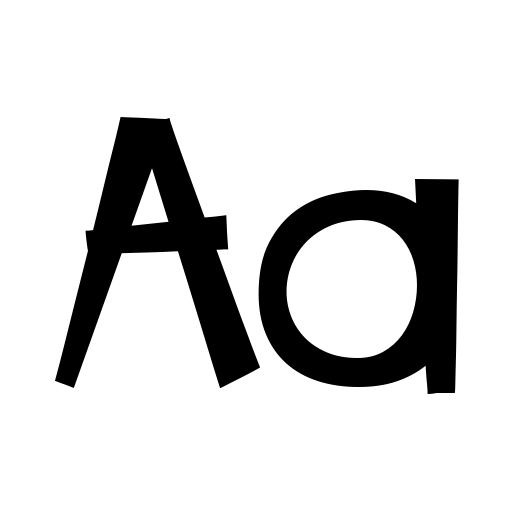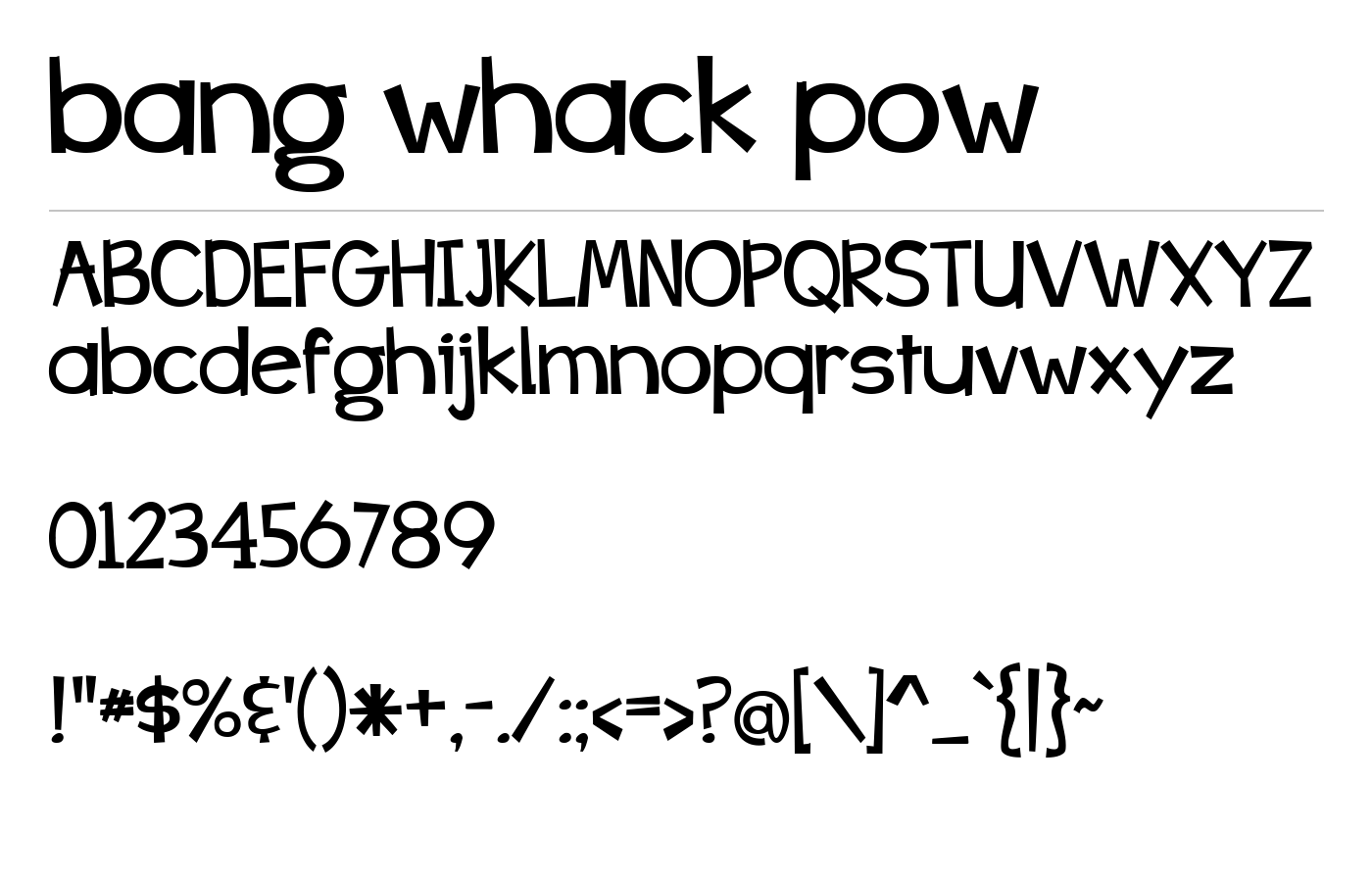
Bang Whack Pow is a playful sans serif font with an irregular, hand-drawn style that brings a fun and energetic vibe to any design. Its quirky letterforms and bouncy, uneven baseline create a casual and whimsical personality, making it ideal for children's materials, comic-style graphics, or any creative project that needs a lively and informal touch. This font works best in headlines, logos, or packaging where a bold, unique character is desired.
bang whack pow Font
About bang whack pow Font
| Font family | bang whack pow Font |
| Designer | Brittney Murphy |